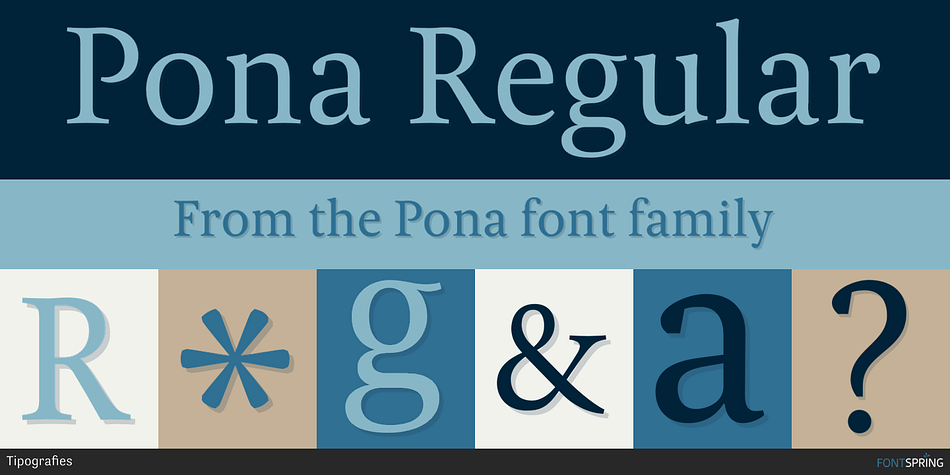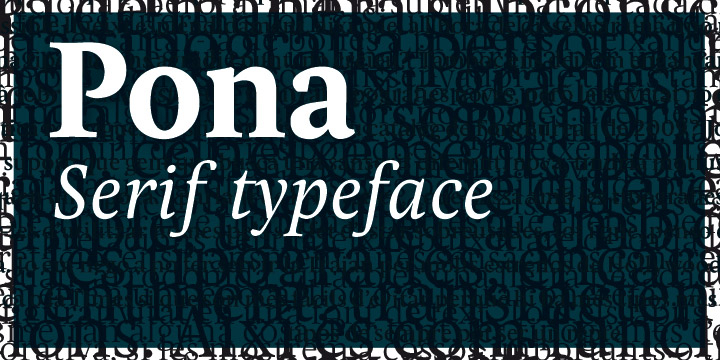
Pona is a serif font family. This typeface has ten styles and was published by Tipografies.
Pona Regular
Pona is a classic serif typeface family. It is an interpretation of some of the most well-known serif fonts, including Times, Georgia, Goudy, and Garamond. It offers delicate letterforms with a large x-height and moderate contrast that is also useful in small sizes and low-res prints.
Pona has five weights, allowing it to bring a variety of tones to the page. It is an OpenType font with small caps, proportional lining figures, tabular lining figures, proportional oldstyle figures, tabular oldstyle figures, super- and subscripts, fractions, and ordinals.